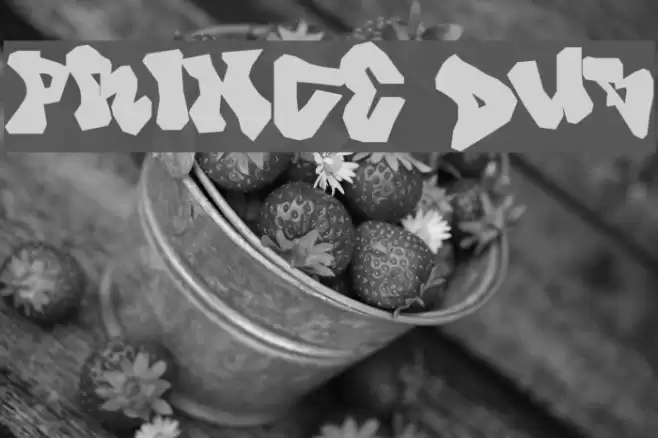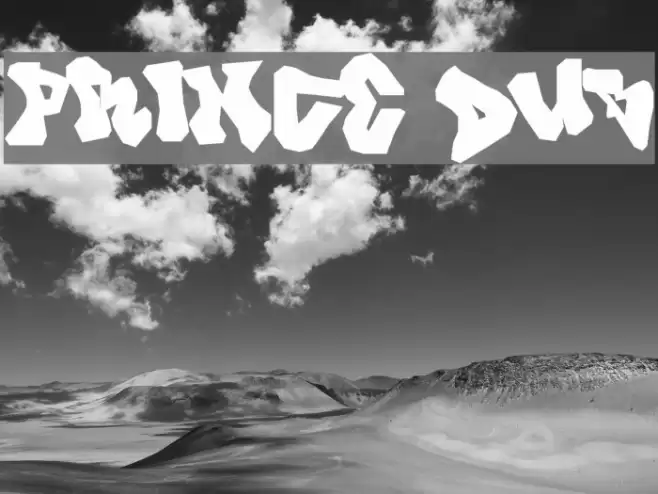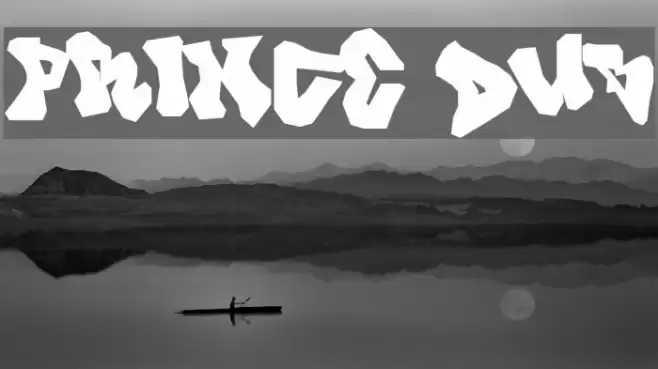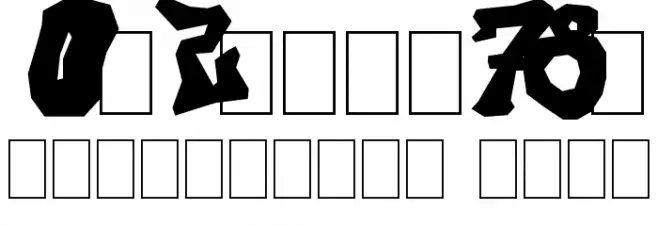
Prince Dub Font
Prince Dub Description
This font features a bold, angular design with a strong presence. The characters are heavily stylized, with sharp edges and a blocky appearance that gives them a distinct, graffiti-like aesthetic. The uppercase letters are particularly striking, with exaggerated forms that create a sense of movement and energy. The lowercase letters maintain this dynamic style, though they are slightly more compact. The numbers follow the same bold and edgy design, making them stand out prominently. Overall, this font exudes a rebellious and urban vibe, making it ideal for projects that require a bold statement.
A bold, angular font with a graffiti-like, urban aesthetic from Graffiti fonts.
- Proposed Projects: Ideal for street art designs, music album covers, urban-themed posters, and edgy branding projects.
- Overall Style: Urban, Edgy, Graffiti
- Use Case: Logos, Posters, Headlines